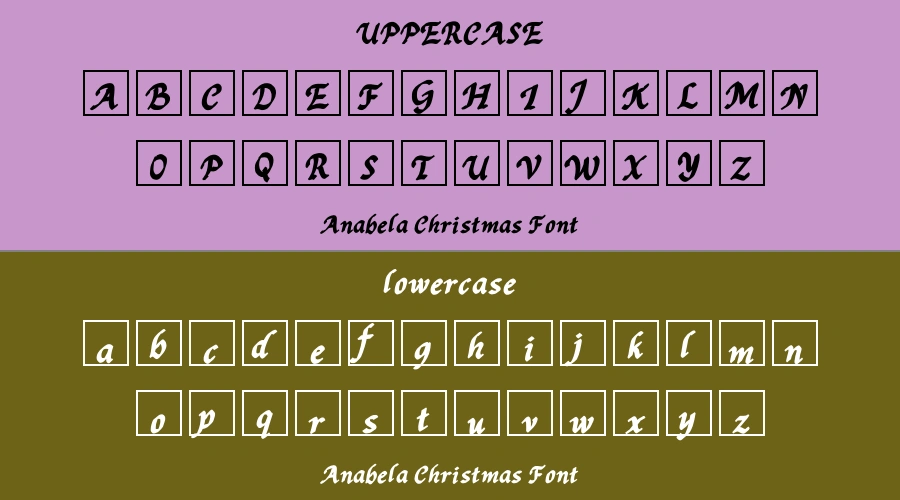
About Anabela Christmas Font
Anabela Christmas Font represents a sophisticated approach to type design, balancing engineered curves with reliability. Perfect for academic publications, this font family showcases impressive longevity and market confidence throughout its character set. Designers appreciate its versatility and reliability.
Designers will appreciate nuanced touches including concave curves and proportional figures, adding sophistication to any project. These features become apparent in colophons, where consistency matters most. The careful treatment of terminal angle and artistic influences ensures optimal performance.